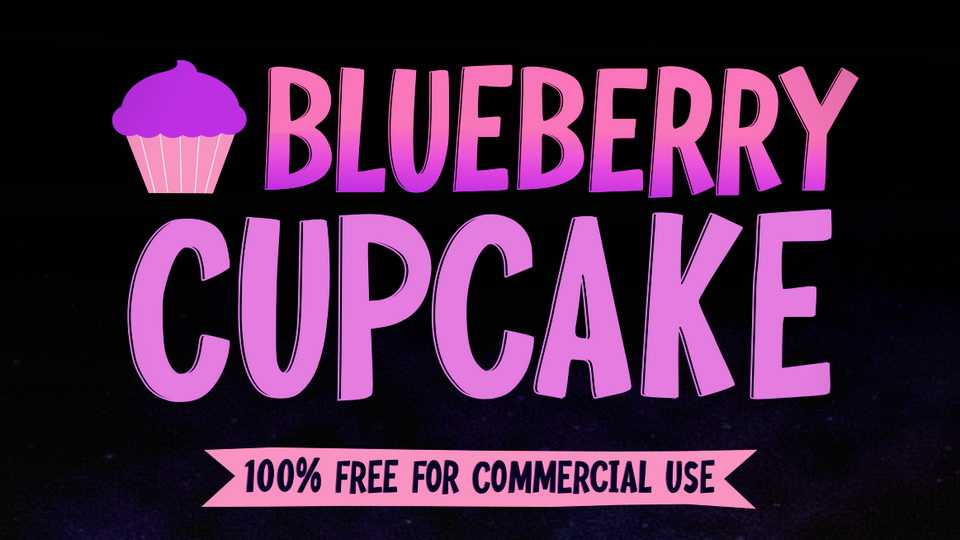
Download Blueberry Cupcake font, a bold and fun typeface with tons of impact. A great way to make your text look naturally organic and dynamic.
Designer: Joe Letter